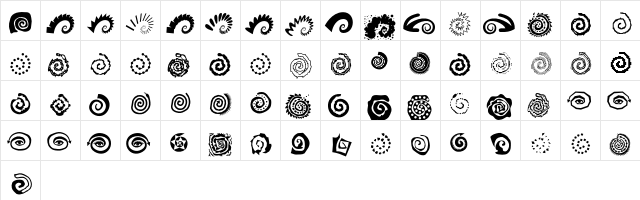
AleOrnamentsSpiratoLL Regular
Design Context for AleOrnamentsSpiratoLL Typeface
AleOrnamentsSpiratoLL brings ornamental detail and strong personality to headlines and identities, where visual impact matters more than quiet functionality.
Font Pairing: Pair with a clean neutral sans-serif for body copy to let AleOrnamentsSpiratoLL's character lead without overwhelming the composition.
Pro Tip: Use AleOrnamentsSpiratoLL exclusively at display sizes — it was designed to be seen, not read at length. Let a neutral companion handle body copy.